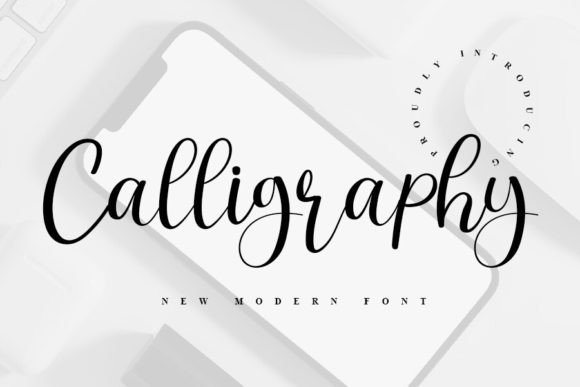
The Art of Beautiful Expression: Exploring the Calligraphy Font
Do you remember the feeling of receiving a handwritten letter from a loved one? The way the ink flowed across the page, the unique curves and flourishes that made each word feel like a personal touch? That’s the magic of handwritten communication, and it’s something that designers and artists can capture with the Calligraphy Font.
This charming font combines elegance with a personal touch, making it ideal for heartfelt invitations, cozy branding, and creative projects. Whether you’re designing a wedding invitation or a logo for a boutique hotel, the Calligraphy Font brings warmth and personality to your designs. For designers, it’s a valuable tool for adding a human touch to their work and creating a lasting impression on their audience.
Key Features of Calligraphy Font
- Unique Characteristics: Calligraphy Font features intricate, hand-crafted lettering with elegant flourishes and subtle texture, making it ideal for creating sophisticated and luxurious designs.
- Language Support: This font supports a wide range of languages, including Latin, Cyrillic, Greek, and many more, allowing designers to create multilingual designs with ease.
- Style Variations: Calligraphy Font offers multiple style variations, including bold, italic, and regular, providing designers with flexibility to create a range of design effects.
- Scalability: This font is designed to be highly scalable, ensuring that it remains legible and visually appealing even at small font sizes, making it perfect for use in various design applications.
Designer Review: Calligraphy Font
Overall, the Calligraphy Font is a beautiful and elegant addition to any design project. It shines in its ability to add a touch of sophistication and whimsy to text. ✨
- Its fluid, connected strokes create a sense of continuity and flow, making it perfect for headings, titles, and quotes.
- The font’s flexibility allows it to be used in a variety of settings, from formal invitations to casual blog posts.
- The many styles and variations available within the font family make it easy to customize and adapt to different design needs.
However, there are some limitations to consider. ⚠️
- The font may be difficult to read in smaller sizes, as the intricate details can become lost.
- The font’s complexity may make it challenging to pair with other fonts, as it can overpower simpler designs.
- The font’s ornate nature may not be suitable for all audiences, particularly those who prefer clean and minimalistic designs.
Overall, the Calligraphy Font is a beautiful and versatile addition to any design project. While it may have some limitations, its unique charm and elegance make it a valuable tool for designers looking to add a touch of sophistication to their work.